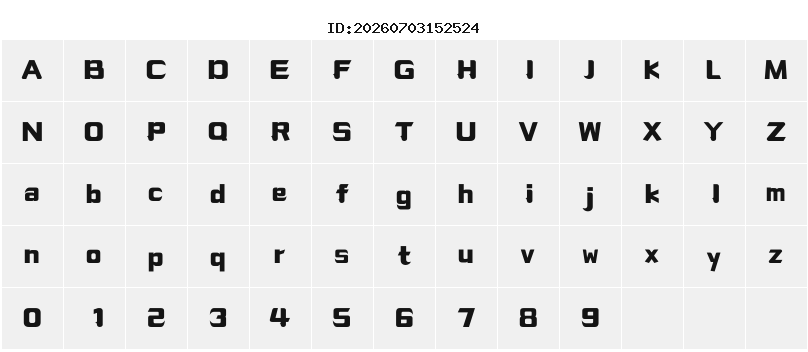
158-上首朗润体 Preview
• Font Name: 158-上首朗润体
• Font ID: 158-SS Lang RunTi:Version 6.00
• Full Font Name: 158-上首朗润体
• Version: Version 6.00 May 13, 2024
• PostScript Name: 158-SSLangRunTi
• Manufacturer: 上首造字
About 158-上首朗润体.ttf
158-上首朗润体.ttf is a modern, elegant sans-serif font designed for ultimate readability and visual harmony. Perfect for branding, headlines, web design, and print materials.